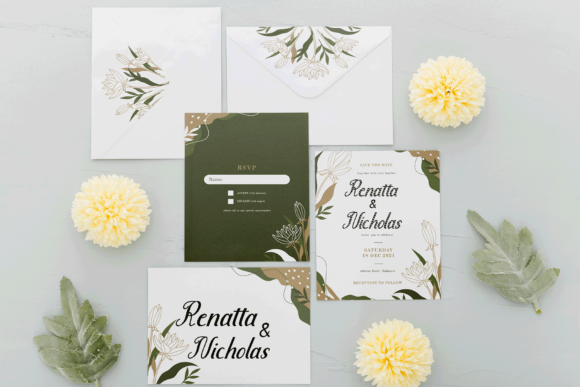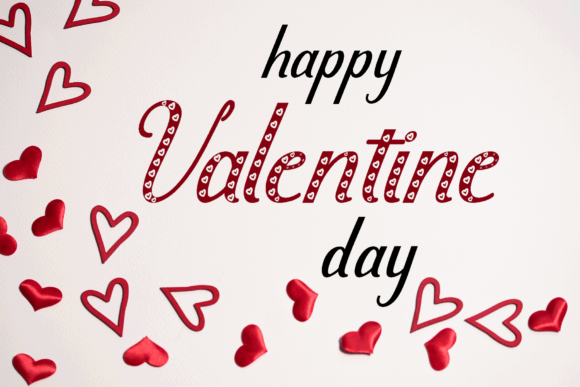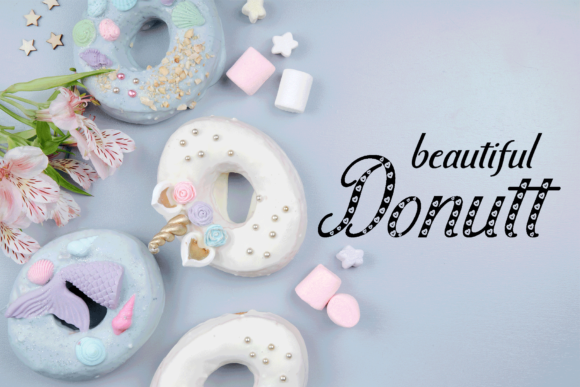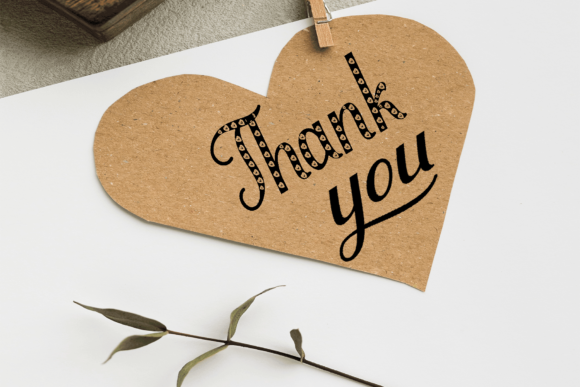
Gullyath Font: The Cute Handwritten Font with a Heartfelt Touch
Are you tired of using the same old fonts in your designs? Look no further than Gullyath Font, a cute handwritten font that is sure to make your creations stand out from the crowd. With its heart-themed characters and playful vibe, Gullyath is the perfect addition to any design project.
What is Gullyath Font?
Gullyath Font is a unique and charming handwritten font that features heart-themed characters, making it a great choice for designers and crafters who want to add a touch of whimsy and romance to their work. The font is designed to be versatile and can be used in a variety of contexts, from busy backgrounds to standalone headlines.
Key Features of Gullyath Font
- Cute and Playful Design: Gullyath Font features a cute and playful design that is sure to capture the attention of your audience.
- Heart-Themed Characters: The font includes heart-themed characters, making it perfect for designs that require a touch of romance and whimsy.
- Versatile: Gullyath Font can be used in a variety of contexts, from busy backgrounds to standalone headlines.
- Handwritten Style: The font has a handwritten style that gives it a personal and unique touch.
Why Use Gullyath Font?
There are many reasons why designers and crafters should consider using Gullyath Font in their work. Here are a few:
- Adds a Touch of Whimsy: Gullyath Font adds a touch of whimsy and playfulness to any design, making it perfect for projects that require a bit of personality.
- Perfect for Romantic Designs: The heart-themed characters in Gullyath Font make it perfect for designs that require a romantic touch, such as Valentine’s Day cards, wedding invitations, and more.
- Easy to Read: Despite its playful design, Gullyath Font is easy to read, making it perfect for use in body text or headlines.
- Unique and Eye-Catching: Gullyath Font is a unique and eye-catching font that is sure to make your designs stand out from the crowd.
How to Use Gullyath Font
Using Gullyath Font is easy and straightforward. Here are a few tips on how to get the most out of this amazing font:
- Use it as a Headline Font: Gullyath Font is perfect for use as a headline font, where its playful design can really shine.
- Pair it with Other Fonts: Gullyath Font can be paired with other fonts to create a unique and interesting design.
- Use it in Digital and Print Designs: Gullyath Font can be used in both digital and print designs, making it a versatile addition to any design project.
In conclusion, Gullyath Font is a cute handwritten font that is sure to make your designs stand out from the crowd. With its heart-themed characters and playful vibe, it’s perfect for designers and crafters who want to add a touch of whimsy and romance to their work. Whether you’re designing a Valentine’s Day card, a wedding invitation, or just a fun and playful project, Gullyath Font is a great choice.